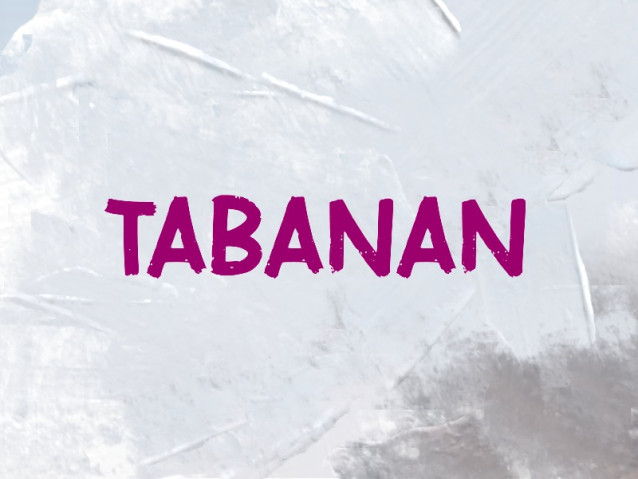
Tabanan Font
Tabanan Font is a simple and modern display font suitable for quotes, logos, headings, titles, and many more. Use it on any of your creative projects, and your designs will become outstanding!